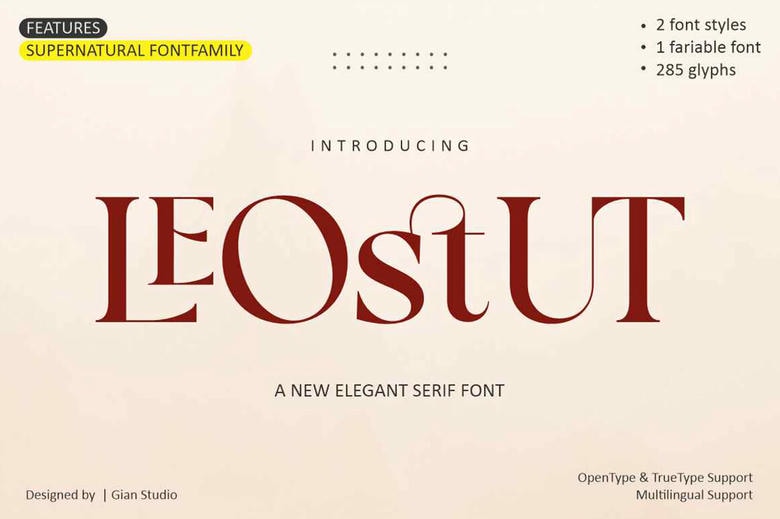
Leostut Font
Leostut is a simple and elegant modern serif typeface that has elements of tradition in it as well. It is available in 2 Forms, Upright and Italic, swollen, as well as stems and itsaltsicle growing with a character of the font. The OpenType has varieties like ligatures and other features that aid in the usage of many languages.
Leostut for it also includes two styles of Variable Regular and Italic to let the designers draw many consciousnesses of attractive forms and introduce you to many subtle visions and mysteries.
Leostut Serif Font